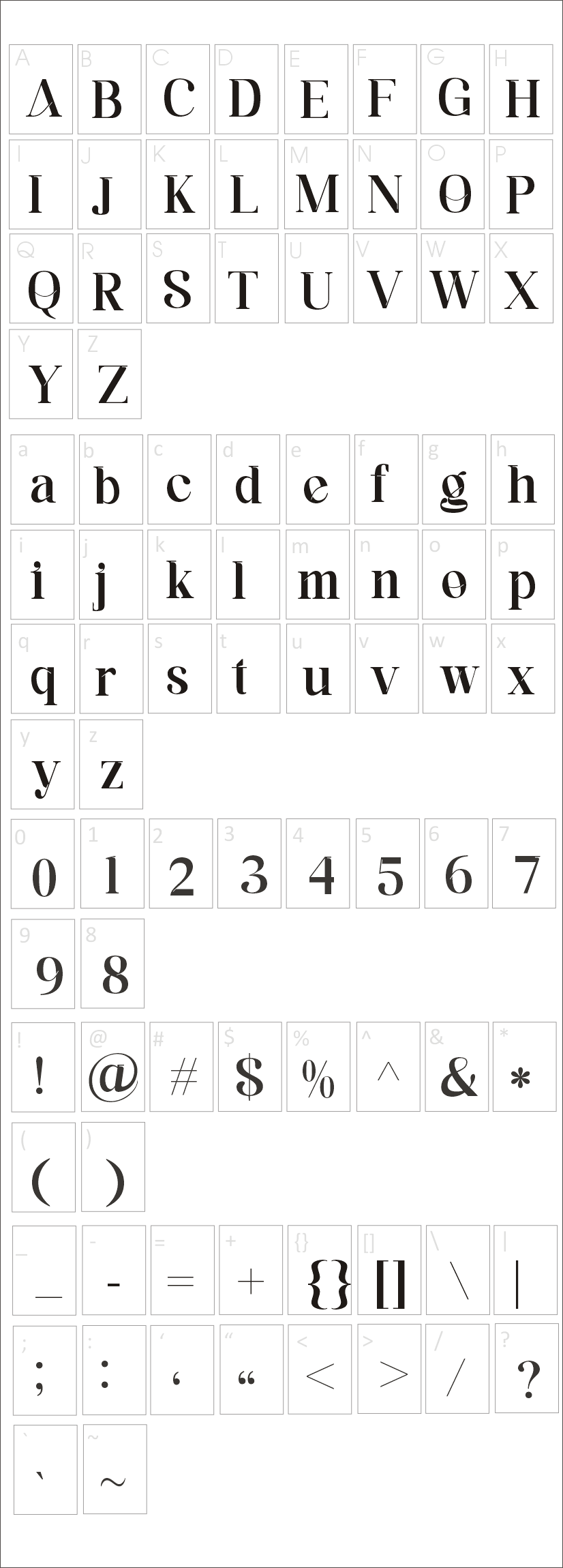
| Name | Moreland Font |
| Category | Serif, Vintage, Display |
Moreland is a captivating font family known for its clean lines, harmonious proportions, and modern aesthetic. Designed with a focus on legibility and versatility. Moreland is perfect for a wide range of projects, from branding and signage to print and digital media.
Key Features of Moreland Font Family:
- Modern and Elegant: Moreland’s sleek design and refined aesthetics make it suitable for both contemporary and traditional projects.
- Exceptional Legibility: The font’s clear and balanced letterforms ensure easy reading on various screen sizes and devices.
- Harmonious Proportions: Moreland’s consistent design across different weights and styles creates a cohesive and professional look.
- Wide Character Support: The font family supports a broad range of languages and characters, making it a global-friendly choice.
- Multiple Weight Options: Moreland includes multiple weight options (e.g., Regular, Bold, Italic), allowing you to find the perfect style for your specific needs.
Ideal Use Cases for Moreland Font Family:
- Branding: Use Moreland for logos, business cards, and other branding materials to create a modern and professional identity.
- Signage: Moreland is often used for signage and wayfinding systems due to its excellent legibility and clear design.
- Print Design: Incorporate Moreland into brochures, flyers, and other print materials to add a touch of sophistication and elegance.
- Web Design: Use Moreland for headlines, body text, and other typographic elements to enhance your website’s visual appeal.
- Corporate Presentations: Moreland’s clean and professional appearance can help make your presentations more impactful.